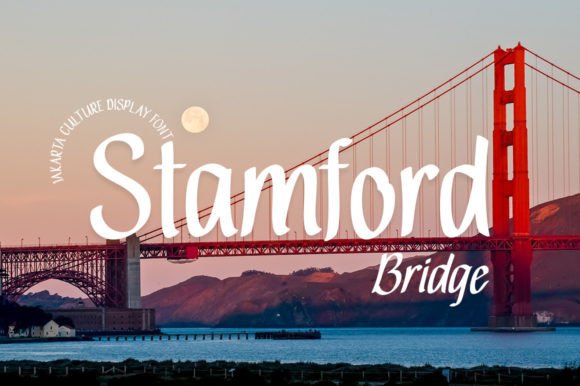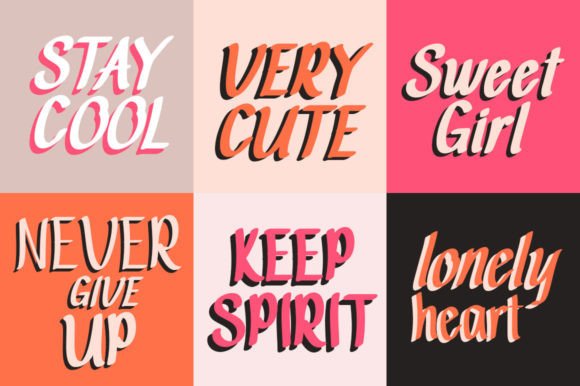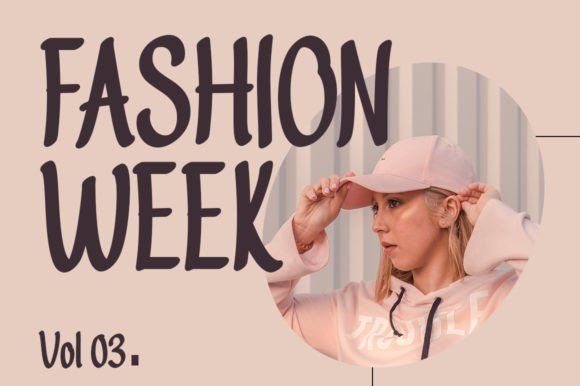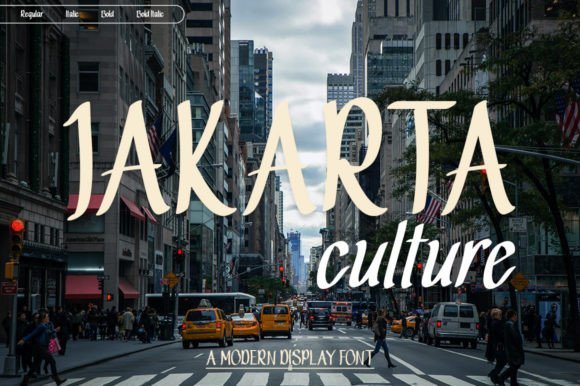
Introduction to Jakarta Culture Font
Jakarta Culture is a very fun yet elegant duo font (display and handwritten) that is guaranteed to make your designs stand out.
It is perfect for logos, printed quotes, invitations, cards, product packaging, headers, weddings, and anything else you can imagine .
Key Features of Jakarta Culture Font
Why Choose Jakarta Culture Font?
Jakarta Culture Font offers exceptional quality and versatility, making it a valuable addition to your design toolkit. Whether you’re creating for personal projects or commercial use, Jakarta Culture Font delivers professional results.